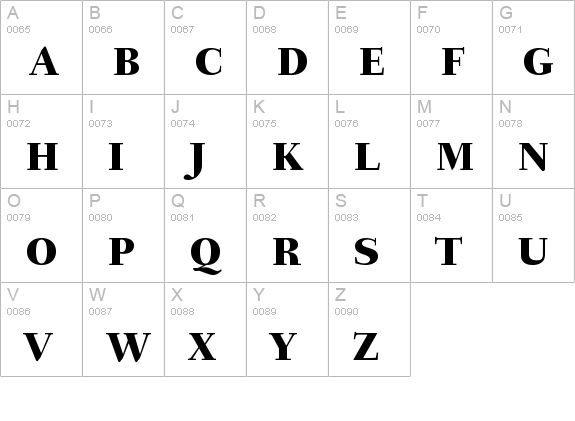
Fairfield LH 85 Heavy is a heavy, high-impact variant in the Fairfield typeface family \xE2\x80\x94 well suited to high-impact headlines, posters, and display advertising.
Fairfield LH 85 Heavy is a bold and commanding font that exudes strength and confidence. Its thick strokes and clean lines make it perfect for headlines, titles, and other attention-grabbing text. This font is ideal for creating a powerful and impactful visual presence in your designs. The best part is that Fairfield LH 85 Heavy is available for free download at FontsMarket.com. You can easily add this striking font to your collection without any cost, making it a valuable asset for your creative projects. With its bold and impactful design, Fairfield LH 85 Heavy is sure to make a statement and leave a lasting impression on your audience.